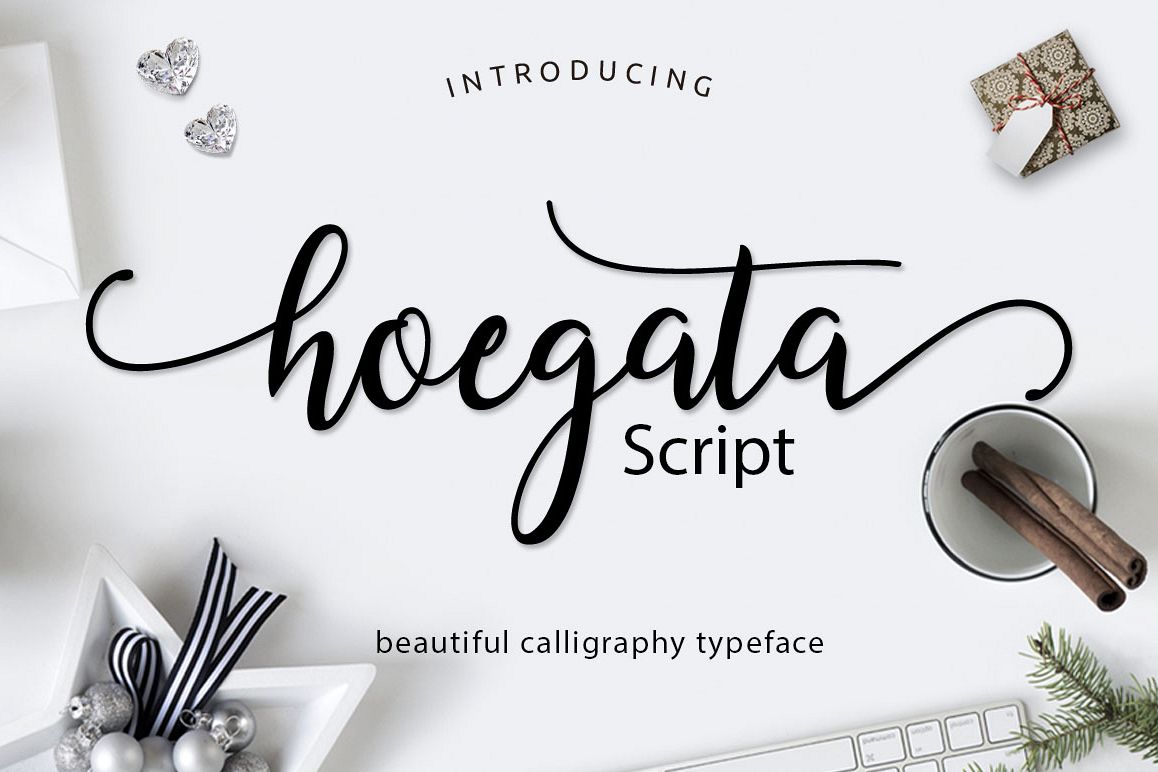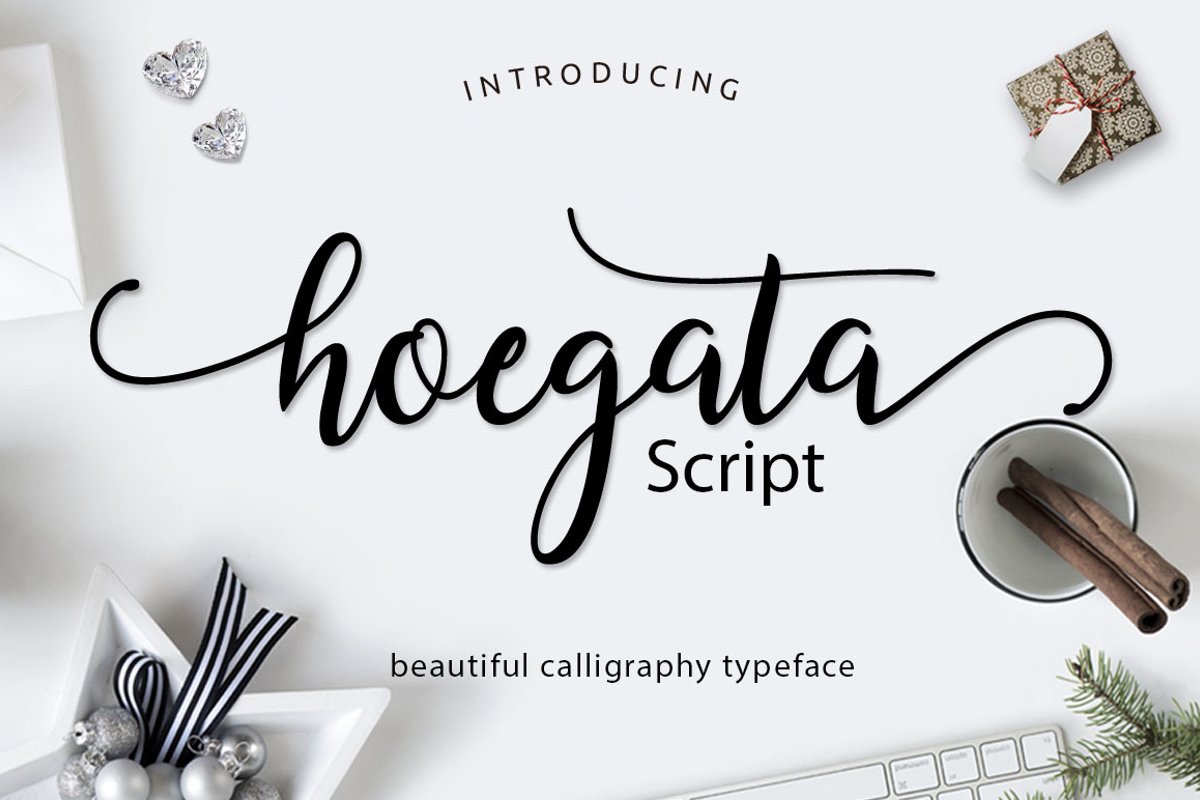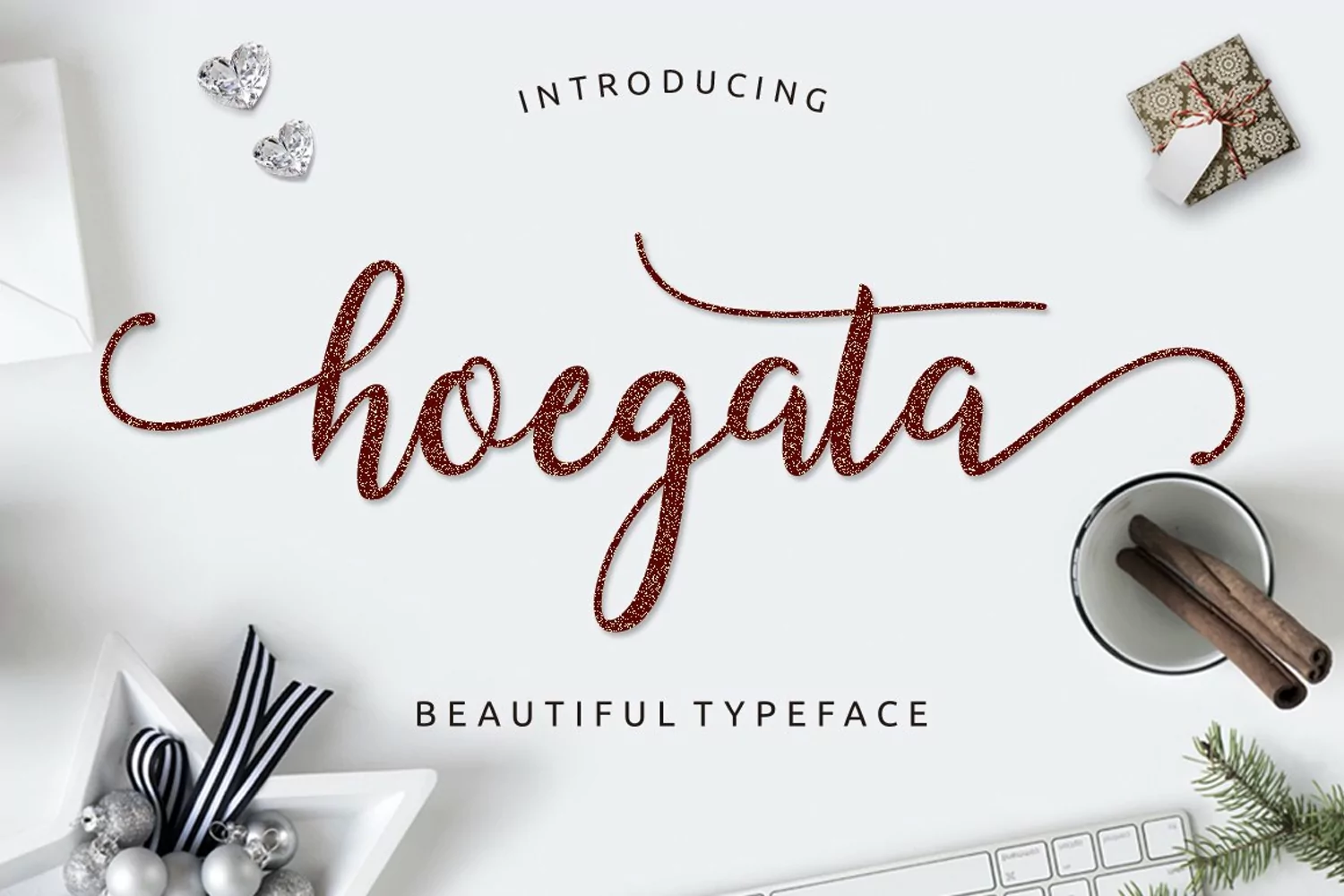
Introducing
Hoegata Script
A new fresh & modern script with a handmade calligraphy style, decorative characters and a dancing baseline! So beautiful on invitations like greeting cards, branding materials, business cards, quotes, posters, and more!! Hoegata Script comes with 360 + glyphs.